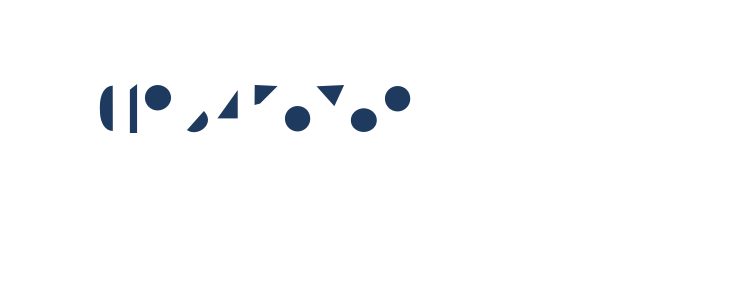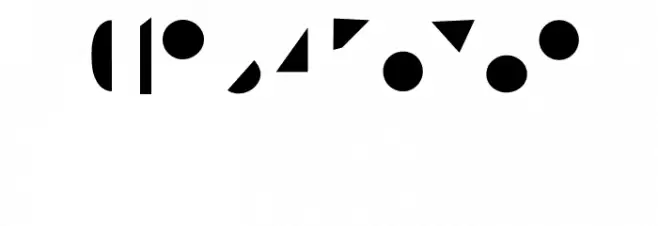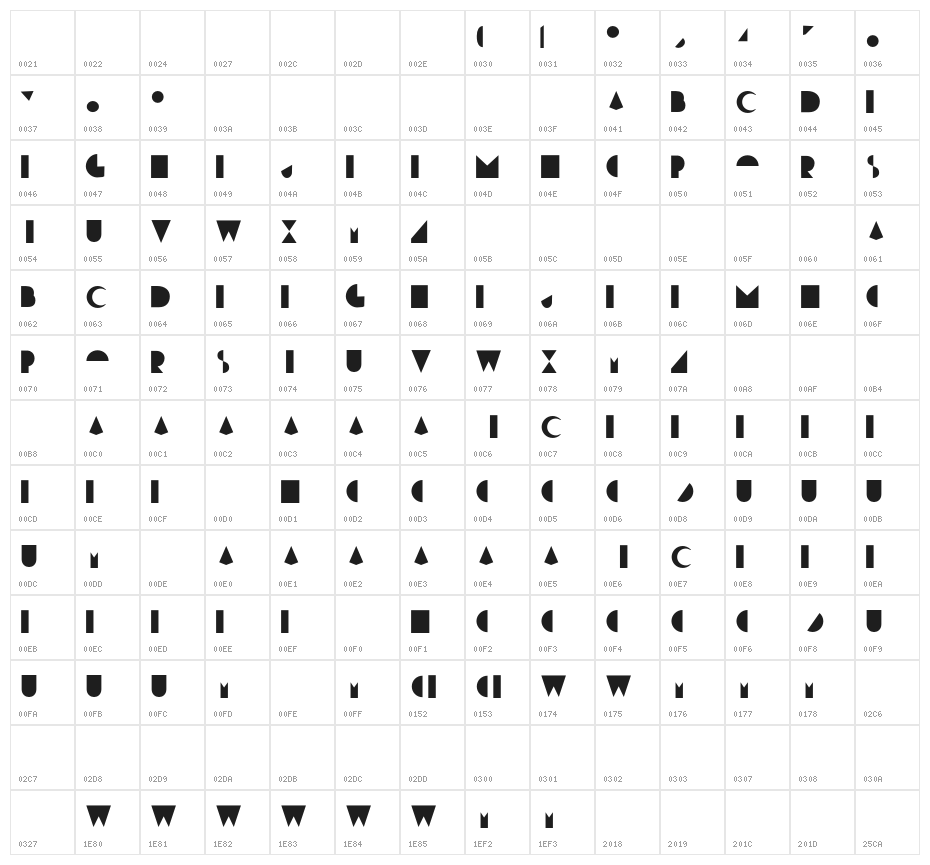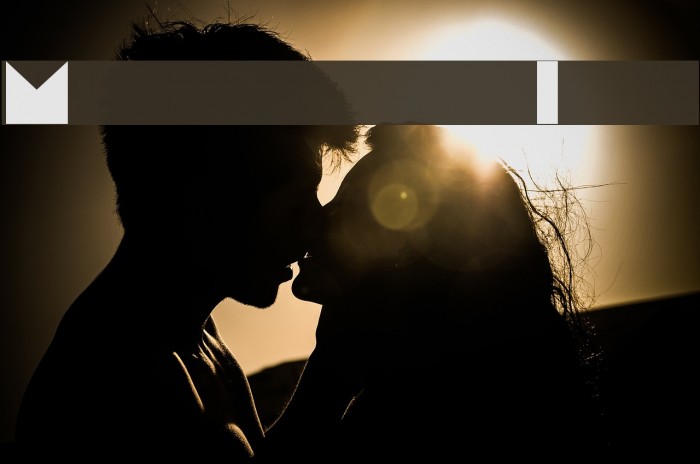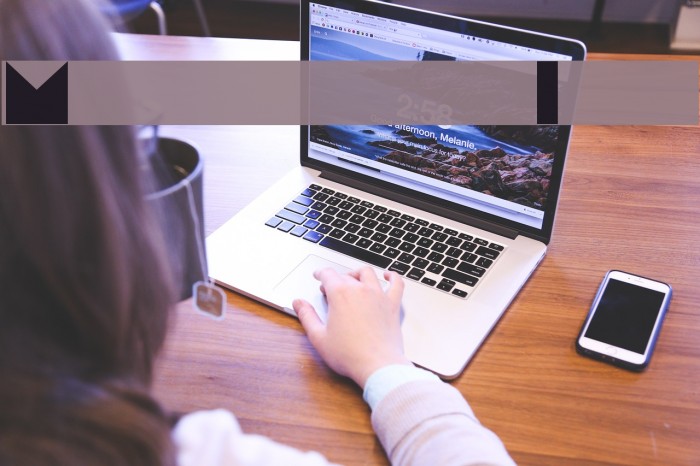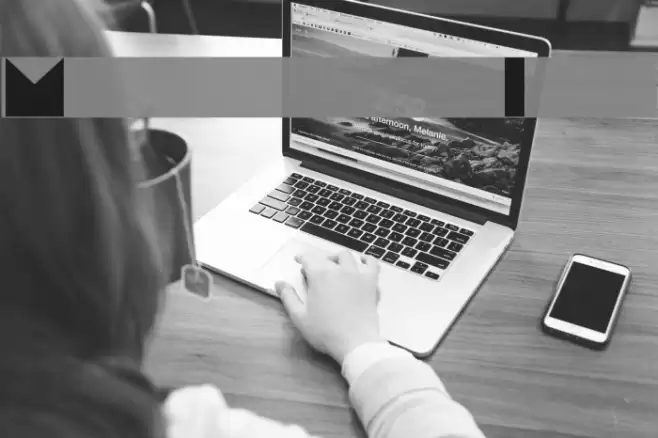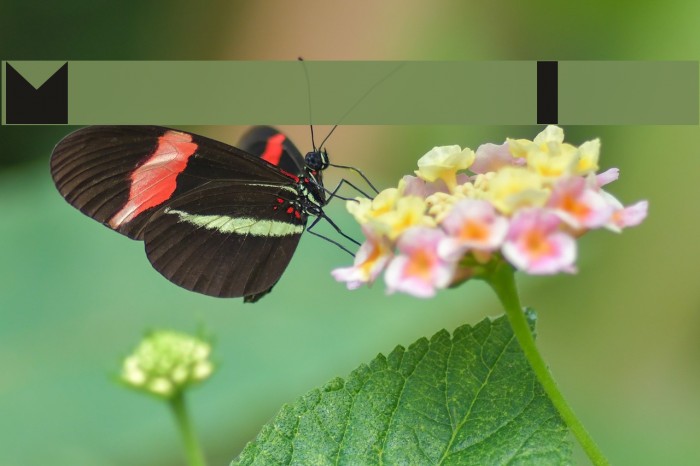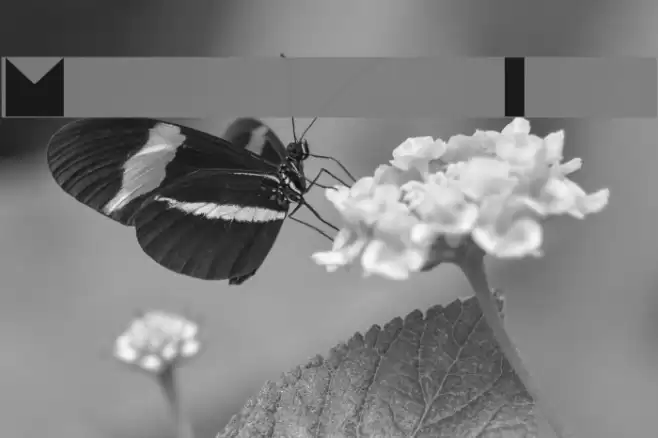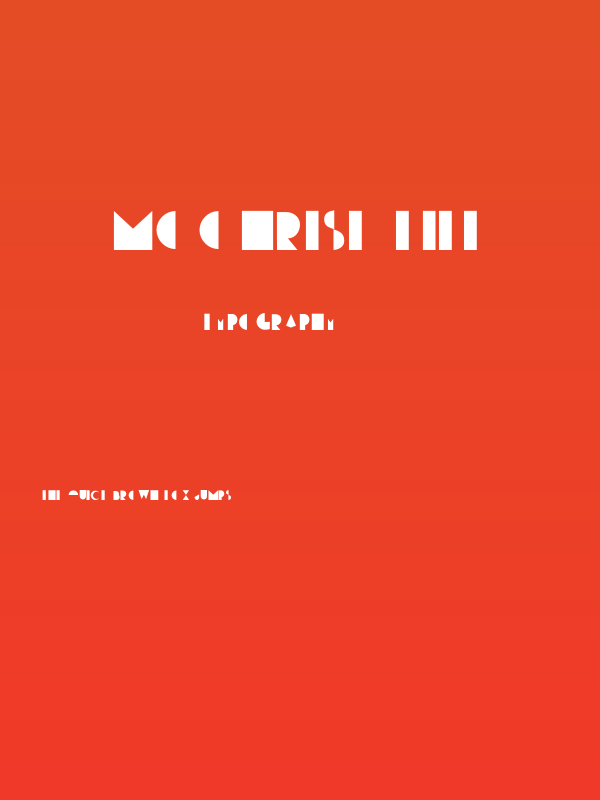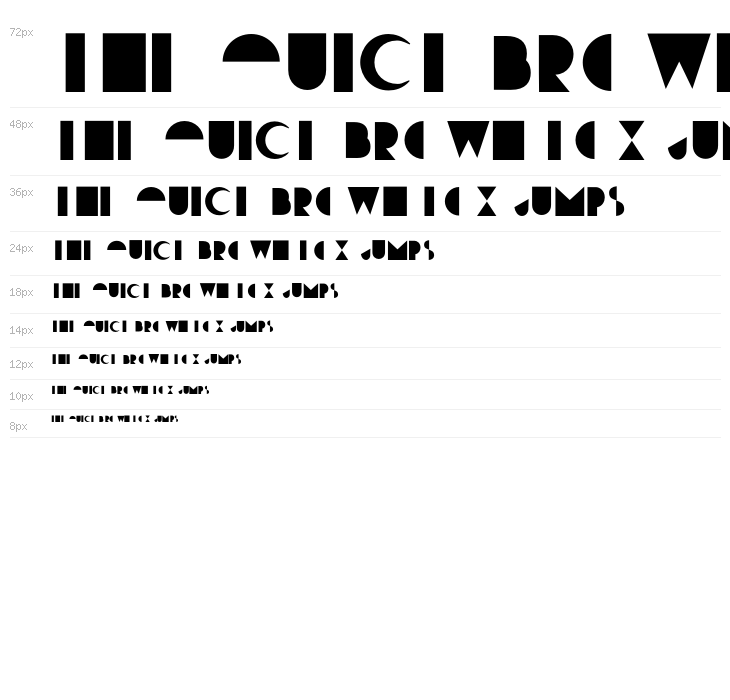
Moonrise Fill Font
Moonrise Fill Description
This font features a bold and geometric style, characterized by its solid, filled shapes and sharp angles. The uppercase letters are particularly striking, with a mix of circular and triangular elements that create a sense of modernity and innovation. The lowercase letters maintain this geometric theme, offering a consistent visual experience. The numbers and special characters are equally bold, ensuring a cohesive look across all text elements. This font is ideal for making a strong visual impact, with its high contrast and distinctive shapes.
| Proposed Projects | Ideal for modern branding, poster design, and headlines that require a strong visual impact. |